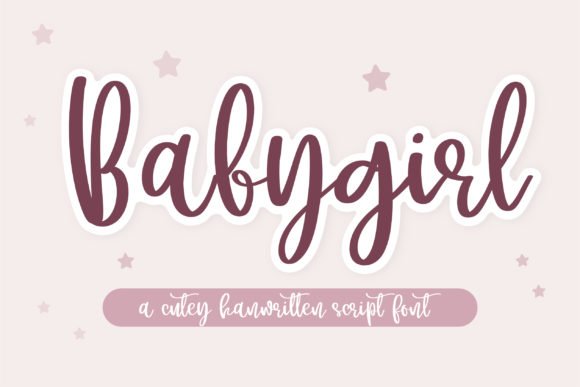
There’s something magical about finding the perfect font for a design project. The moment you see it, you know it’s the one – the way it flows, the way it looks, the way it makes you feel. For many designers, this moment is like finding a needle in a haystack, but for those who stumble upon the Babygirl Font, it’s like discovering a treasure trove of creativity.
The Babygirl Font is a delicate and elegant handwritten font that’s sure to capture your heart. Its distinct and well-rounded letters make it a masterpiece that’s perfect for creating spectacular designs. Whether you’re a seasoned designer or just starting out, the Babygirl Font is a valuable asset that can elevate your designs to the next level.
With its incredibly versatile style, the Babygirl Font is a must-have for any designer looking to add a touch of sophistication and elegance to their work. Whether you’re creating a wedding invitation, a birthday card, or a social media post, the Babygirl Font is sure to make it stand out.
Babygirl Font Key Features
- Font Family: Babygirl is a sans-serif script font designed to resemble handwritten text, perfect for creating a friendly and approachable atmosphere.
- Unique Characteristics: Babygirl Font features a unique, cursive-like design with subtle irregularities, giving it a personal and handwritten feel.
Babygirl Font Review
I was excited to dive into the Babygirl Font and see what it had to offer. Overall, I’d say it’s a cute and playful script font that’s perfect for designers who want to add a touch of whimsy to their projects.
- The font’s fluid, handwritten feel makes it perfect for creating a personal and approachable tone.
- The font’s versatility allows it to be used for a wide range of projects, from social media graphics to wedding invitations.
- The font’s character set includes a wide range of accents and symbols, making it easy to get creative with your designs.
- The font’s lack of bold or italic weights can make it difficult to use in situations where you need to emphasize certain text.
- The font’s script style can make it difficult to read in certain contexts, such as small font sizes or low-resolution displays.
Overall, I’d say the Babygirl Font is a great choice for designers who want to add a touch of personality to their projects. While it has some limitations, its unique feel and versatility make it a great addition to any designer’s toolkit.